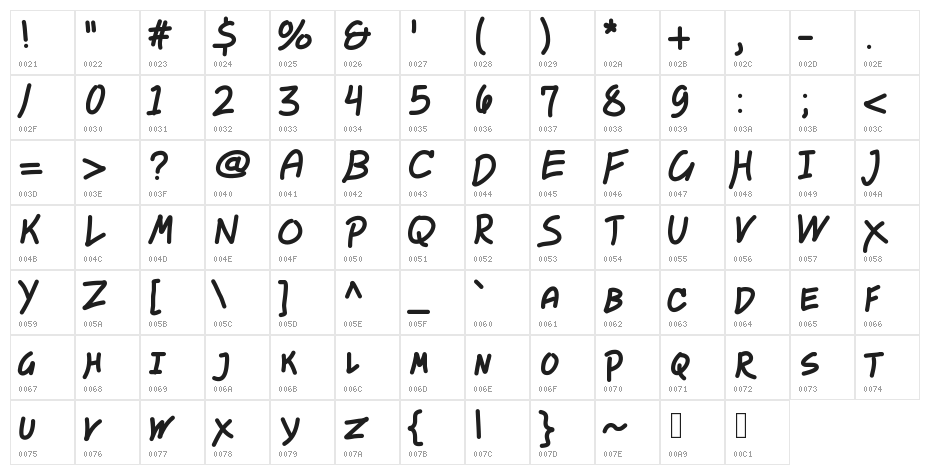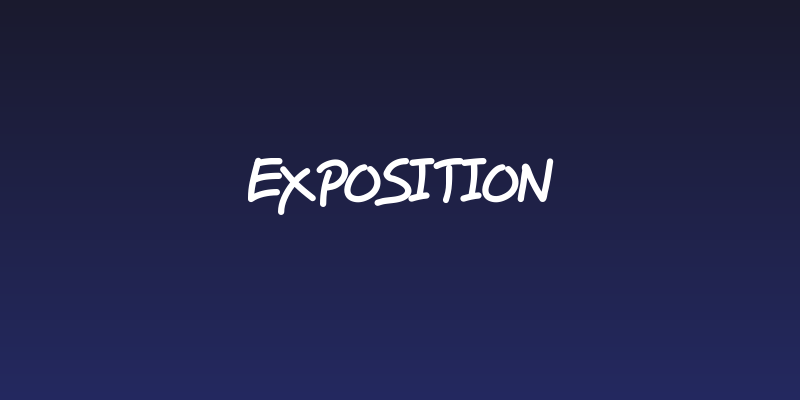
Exposition Font
| 全体的なスタイル | Casual, Energetic |
| 用途 | Headlines, Logos, Informal Text |
| おすすめプロジェクト | Perfect for greeting cards, posters, social media graphics, and branding that seeks a personal and lively touch. |